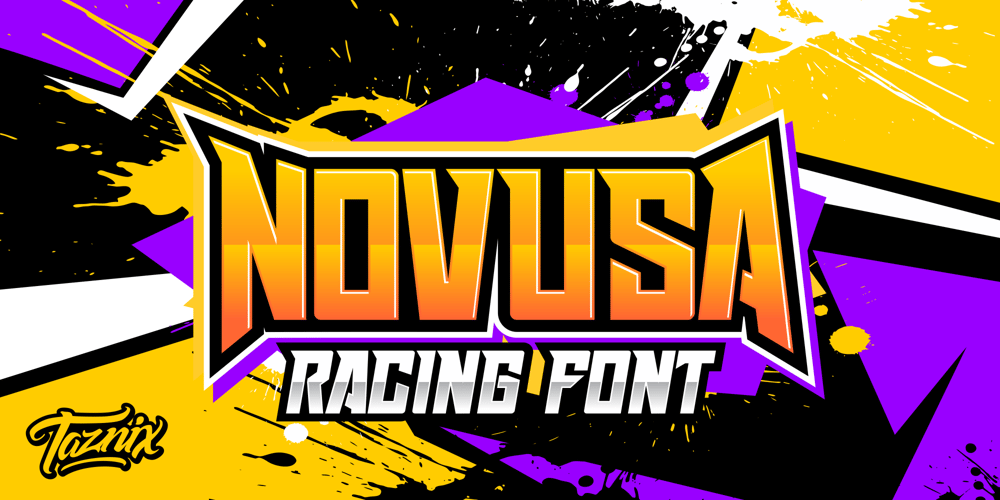
Novusa Font Family was designed by Ricky Hartasni and published by Taznix Creative. Novusa contains 1 styles and family package options. Novusa is a bold and dramatic display font. This original look will appeal to a wide range of crafty ideas, from letterheads and titles, to stationery.Novusa Perfect for for many creative products such as logos, tattoo design, t-shirt prints, street wear, headlines, tattoo lettering, calligraphy, clothing brands, music, sports, labels and much more.What’s Included : Web Fonts Standard glyphs Ligature Works on PC & Mac Simple installations Accessible in the Adobe Illustrator, Adobe Photoshop, Adobe InDesign, even work on Microsoft Word. PUA Encoded Characters – Fully accessible without additional design software. Fonts include multilingual support for; ä ö ü Ä Ö Ü ß ¿ ¡